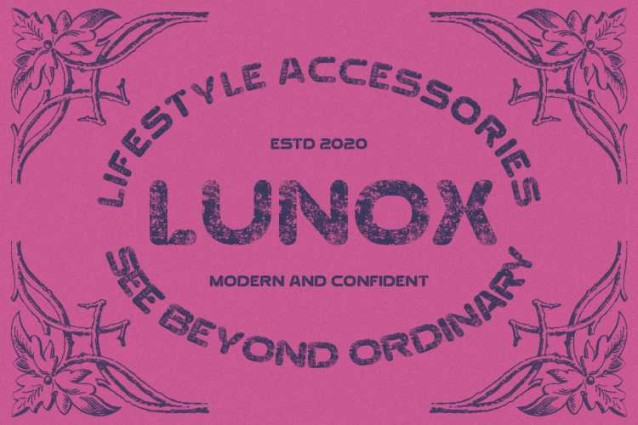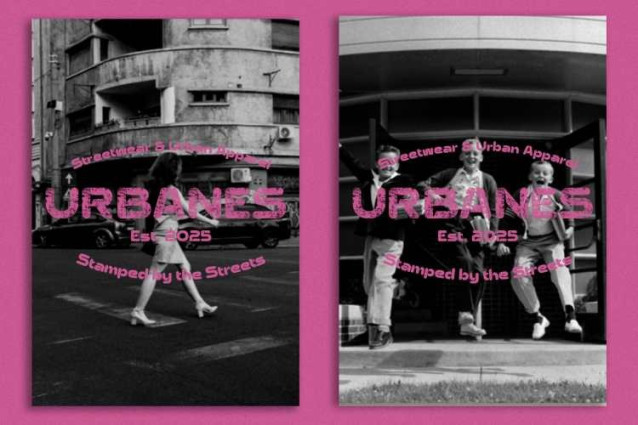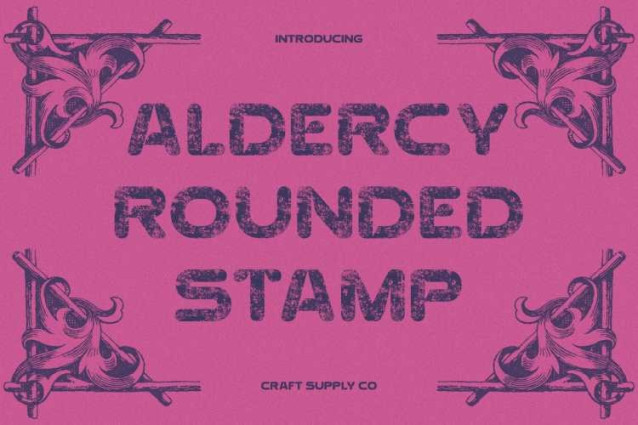
Aldercy Rounded Stamp Font
Aldercy Rounded Stamp Font is a bold sans serif display font that merges futuristic precision with vintage character. Its rounded letterforms give it a smooth, modern appeal, while the added stamp texture infuses it with depth, warmth, and handmade authenticity perfect for designs that balance boldness and personality.
Striking Shapes with Futuristic Appeal
Every curve in this font is crafted for impact. The strong, modern shapes exude a forward-looking vibe, while maintaining a sense of softness through rounded edges. This combination makes it ideal for branding, packaging, and digital design projects that want to look sleek yet approachable.
Stamp Texture for Vintage Expression
The subtle stamp effect gives this font a tactile, imperfect charm that contrasts beautifully with its geometric structure. It adds character and visual texture, making it perfect for posters, retro branding, or artistic headlines that need a hint of nostalgic flair.
Versatile and Expressive Design
This font bridges the gap between modern innovation and vintage craftsmanship. Whether you’re designing a futuristic logo, a stylish editorial headline, or a creative poster, this typeface ensures your work stands out with bold energy and timeless appeal.